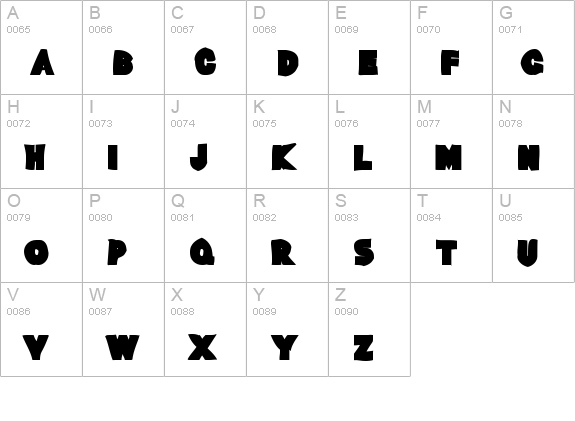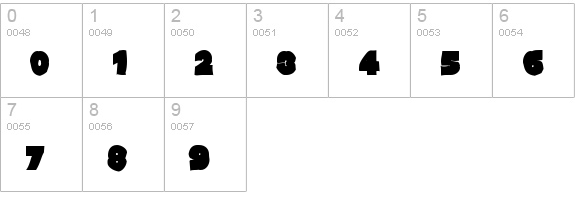
Baltar Ink Font Details
Introducing Baltar Ink font, a bold and expressive typeface that exudes creativity and individuality. This unique font features a hand-drawn look with rough edges, giving it a raw and edgy vibe perfect for projects that require a touch of personality. Baltar Ink font is versatile and eye-catching, making it ideal for a wide range of design projects, from posters and invitations to logos and branding. The best part? Baltar Ink font is completely free to download at FontsMarket.com. Simply visit the website and add this striking font to your collection with just a few clicks. Don't miss out on the opportunity to elevate your designs with the distinctive charm of Baltar Ink font - download it today and let your creativity shine!